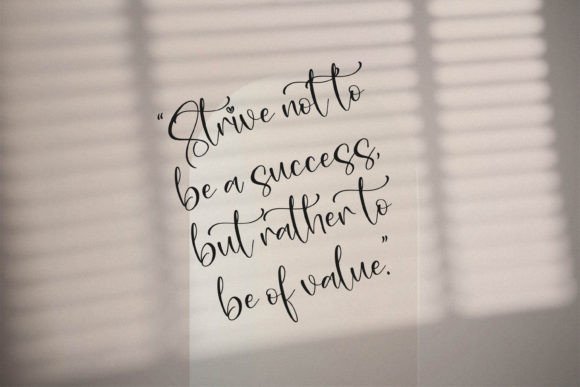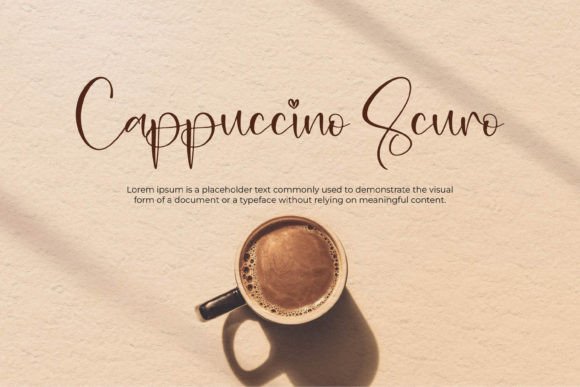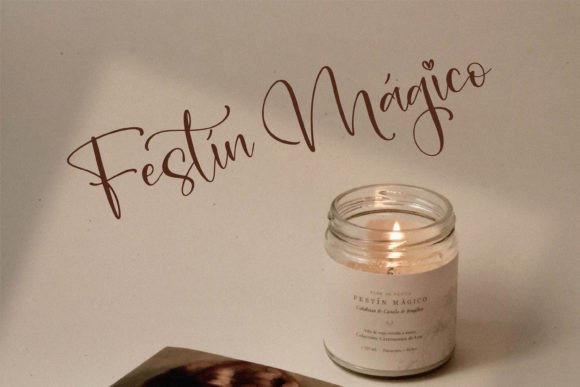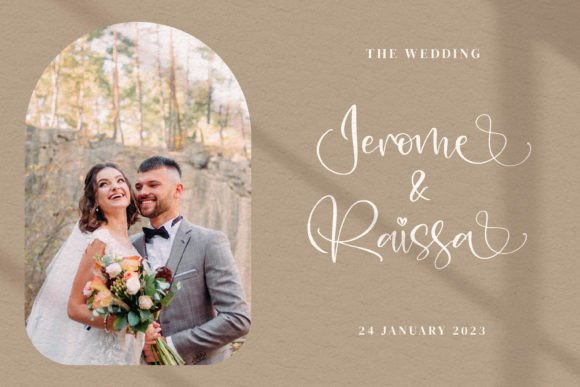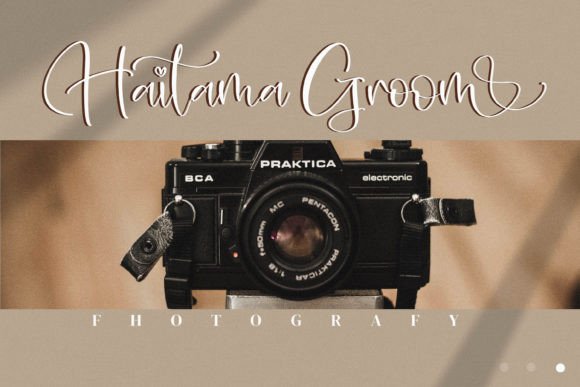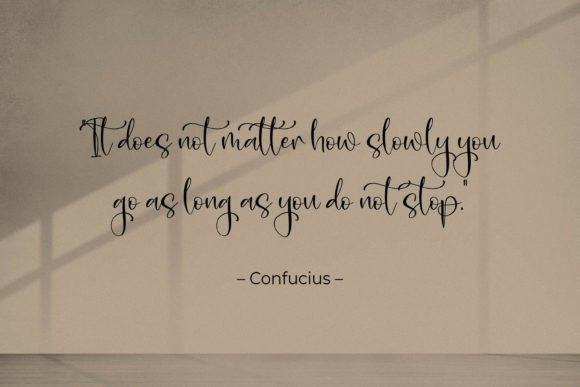
Aleani Font: Elevate Your Designs with Elegance and Sophistication
In the world of typography, fonts play a crucial role in conveying the tone and personality of a design. For designers and crafters looking to add a touch of elegance and sophistication to their work, Aleani Font is an excellent choice. This modern script font boasts a beautiful, flowing script style that is perfect for a wide range of applications, from logos and branding to mugs, quotes, and more.
The Characteristics of Aleani Font
Aleani Font is a modern script font that exudes elegance and refinement. Its flowing lines and curves create a beautiful, fluid look that is perfect for designs that require a touch of sophistication. The font features:
- Elegant and refined design: Aleani Font boasts a sleek and modern design that is perfect for designs that require a high level of sophistication.
- Flowing script style: The font features a beautiful, flowing script style that is perfect for creating beautiful quotes, posters, and more.
- Highly legible: Despite its elegant design, Aleani Font is highly legible, making it perfect for use in a wide range of applications, from body text to headings.
Uses for Aleani Font
Aleani Font is an incredibly versatile font that can be used in a wide range of applications. Some of the most popular uses for this font include:
- Logos and branding: Aleani Font is perfect for creating elegant and sophisticated logos and branding materials.
- Mugs and ceramics: Add a touch of elegance to your mug and ceramic designs with Aleani Font.
- Quotes and posters: Create beautiful quotes and posters with Aleani Font’s flowing script style.
- T-shirts and apparel: Aleani Font is perfect for creating stylish and sophisticated t-shirt and apparel designs.
- Books and cards: Use Aleani Font to add a touch of elegance to your book and card designs.
- Photography: Aleani Font is a great choice for adding text to your photographs, particularly for weddings, events, and other special occasions.
Why Choose Aleani Font?
With so many fonts to choose from, why should you choose Aleani Font? Here are just a few reasons:
- Unique and distinctive design: Aleani Font boasts a unique and distinctive design that will set your work apart from the crowd.
- Elegant and sophisticated: Aleani Font adds a touch of elegance and sophistication to any design.
- Highly versatile: Aleani Font can be used in a wide range of applications, from logos and branding to mugs and posters.
Tips for Using Aleani Font
Here are a few tips for getting the most out of Aleani Font:
- Use it sparingly: Aleani Font is a bold and elegant font, so use it sparingly to add emphasis to your design.
- Pair it with a sans-serif font: Aleani Font pairs well with sans-serif fonts, such as Arial or Helvetica.
- Experiment with different colors: Aleani Font looks great in a wide range of colors, from bold and bright to subtle and pastel.
Aleani Font is a beautiful and elegant script font that is perfect for designers and crafters looking to add a touch of sophistication to their work. With its flowing lines and curves, Aleani Font is perfect for a wide range of applications, from logos and branding to mugs and posters. Whether you’re looking to create a stylish and sophisticated logo or add a touch of elegance to your designs, Aleani Font is an excellent choice.